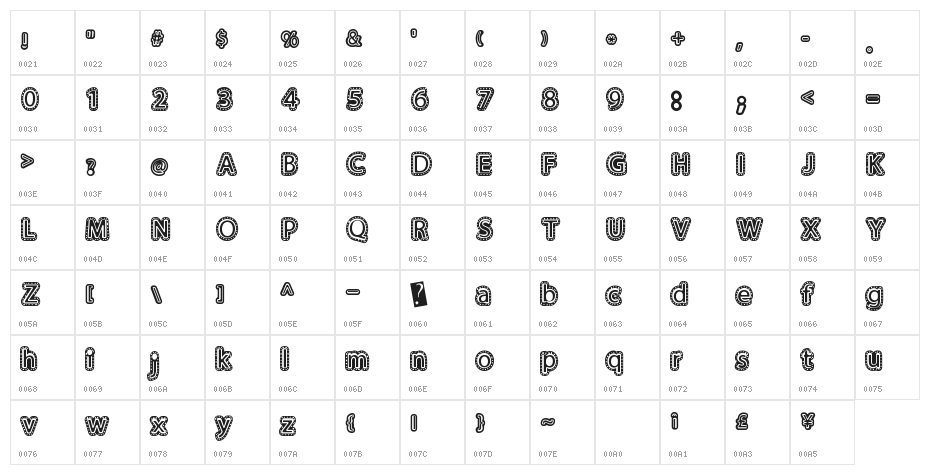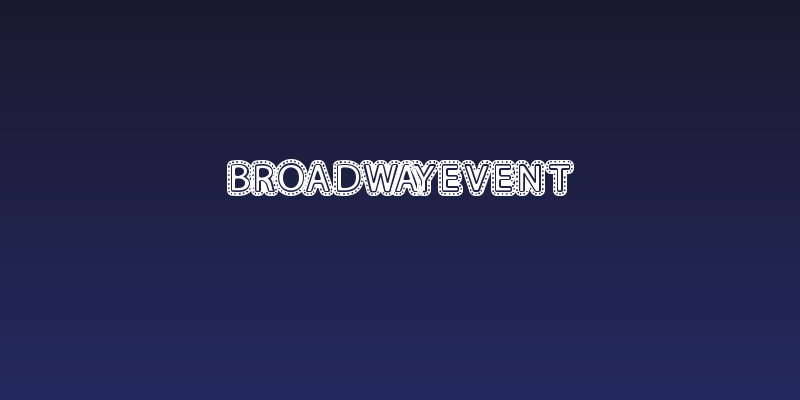
BroadwayEvent Font
BroadwayEvent Description
This font exudes a vibrant and theatrical essence, reminiscent of classic Broadway marquees. Each character is outlined with a bold black stroke, filled with a bright white interior, and adorned with evenly spaced dots that mimic the appearance of light bulbs. The uppercase and lowercase letters maintain a consistent style, with rounded edges and a playful, yet structured form. The numerals and special characters follow the same decorative theme, ensuring a cohesive look across all text elements. This font is perfect for capturing attention and adding a touch of drama and excitement to any design.
| Proposed Projects | Ideal for theater posters, event invitations, signage, and any project needing a dramatic flair. |